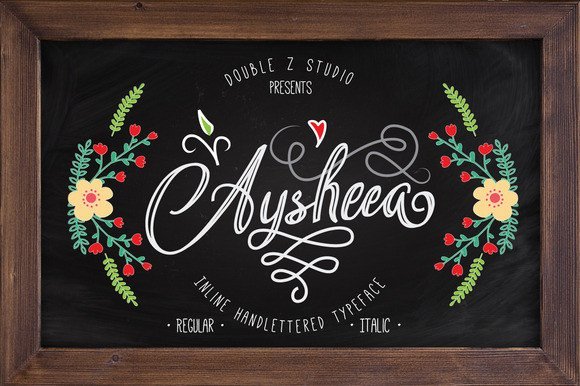
The Perfect Blend of Tradition and Modernity: Aysheea Font
There’s something magical about holding a pen and watching your ideas come to life on paper. The scratch of the nib, the flow of the ink, and the joy of seeing your handwriting transform into something beautiful. As designers, we’ve all experienced that moment of creative euphoria, and it’s what drives us to seek out the perfect tools to bring our visions to life.
Enter the Aysheea Font, a stunning script font that effortlessly blends traditional calligraphy appeal with modern sensibilities. This beautiful font is more than just a pretty face – it’s a versatile tool that can elevate any design project from simple to sophisticated. Whether you’re a seasoned pro or just starting out, the Aysheea Font is an invaluable addition to your design arsenal.
With its unique blend of classic charm and contemporary flair, the Aysheea Font is sure to inspire your next creative project and take your designs to the next level.
Aysheea Font Key Features
- Unique Characteristics: This font features a unique blend of modern and vintage elements, with intricate details and subtle textures that add depth and visual interest to any design.
- Language Support: Aysheea Font supports a wide range of languages, including Latin, Cyrillic, and Greek scripts, making it a versatile choice for global branding and design projects.
Aysheea Font Review
Aysheea Font is a beautiful script font that I’ve had the chance to work with. Overall, I’m impressed with its elegance and versatility. Here are some of the things that stand out:
- ✨ Unique flair: Aysheea Font has a distinct flair that sets it apart from other script fonts. It’s perfect for adding a touch of sophistication to your designs.
- ✨ Versatile: The font is incredibly versatile, making it suitable for a wide range of projects, from branding and advertising to editorial and packaging.
- ✨ Beautiful letterforms: Each letterform in Aysheea Font is carefully crafted to create a sense of fluidity and movement.
However, like any font, Aysheea Font has its limitations:
- ⚠️ Limited font weights: Aysheea Font comes in only a few font weights, which may limit its use in certain design applications.
- ⚠️ Not suitable for body text: While Aysheea Font is perfect for headings and titles, it may not be the best choice for body text due to its script style.
Overall, I think Aysheea Font is a great addition to any designer’s toolkit. Its unique flair and versatility make it a standout choice for a wide range of design projects.
Aysheea Font Practical Application Guide
Tip: Use Aysheea Font for headings and titles to add a touch of elegance to your designs.
Tip: Use Aysheea Font for typography-heavy designs, such as posters or brochures.
Tip: Use Aysheea Font for presentations and documents that require a professional and sophisticated look.
Aysheea Font is ideal for:
- Typography-heavy designs, such as posters or brochures.
- Presentations and documents that require a professional and sophisticated look.
- Headings and titles that need to stand out.
What is the character set of the Aysheea Font?
The Aysheea Font includes a comprehensive character set, covering Latin, Cyrillic, and Greek scripts, as well as a range of punctuation and symbol glyphs. The font also supports Unicode characters up to U+10FFFF.